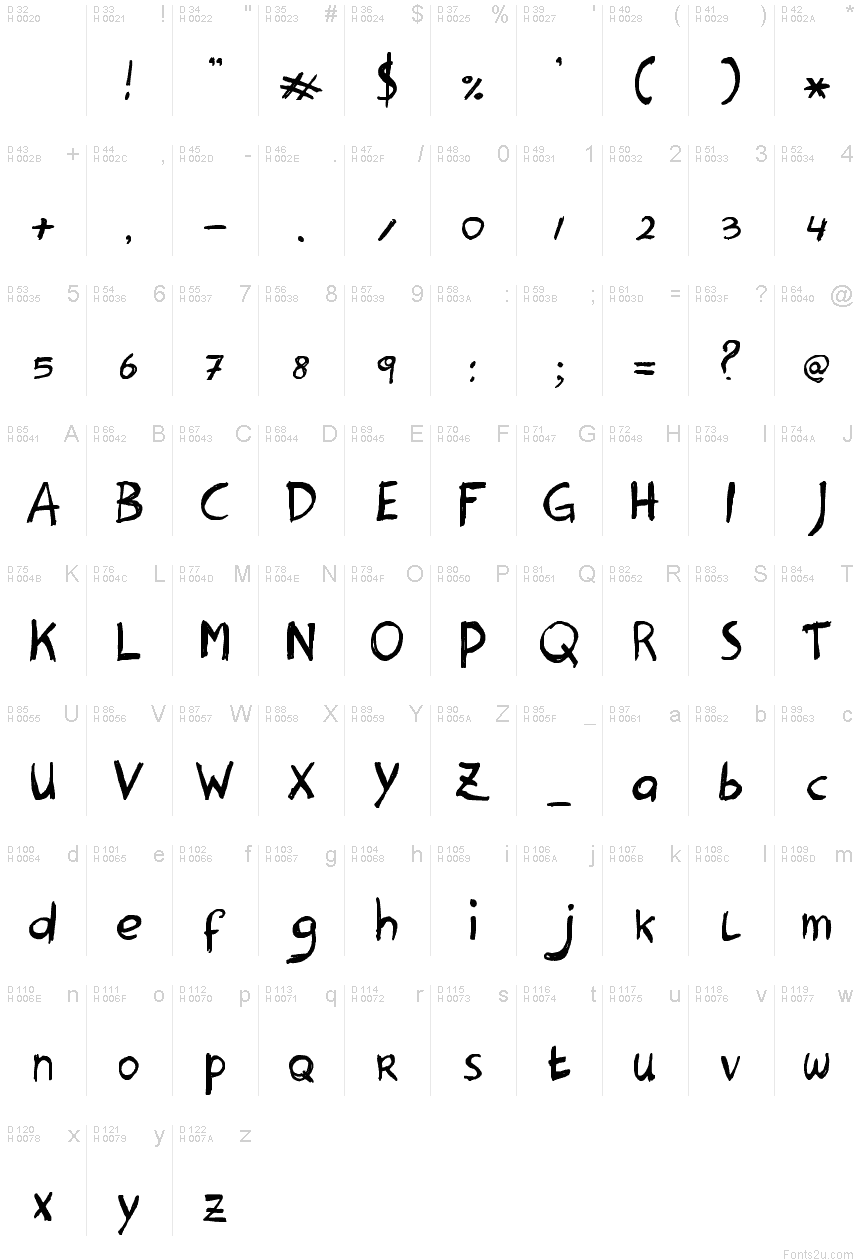
Hanoded Heavy by David Kerkhoff is a free chunky handwritten display font with blunt brush strokes and uneven edges. Its rounded letters shift in width and sit at irregular angles.
Posters are its strongest setting, especially for comedy or informal events that benefit from hand-painted punch. It also suits food packaging and merchandise, where the rough strokes can echo marker drawings or simple illustrations. The casual brushwork is particularly convincing for youth entertainment and DIY music graphics.